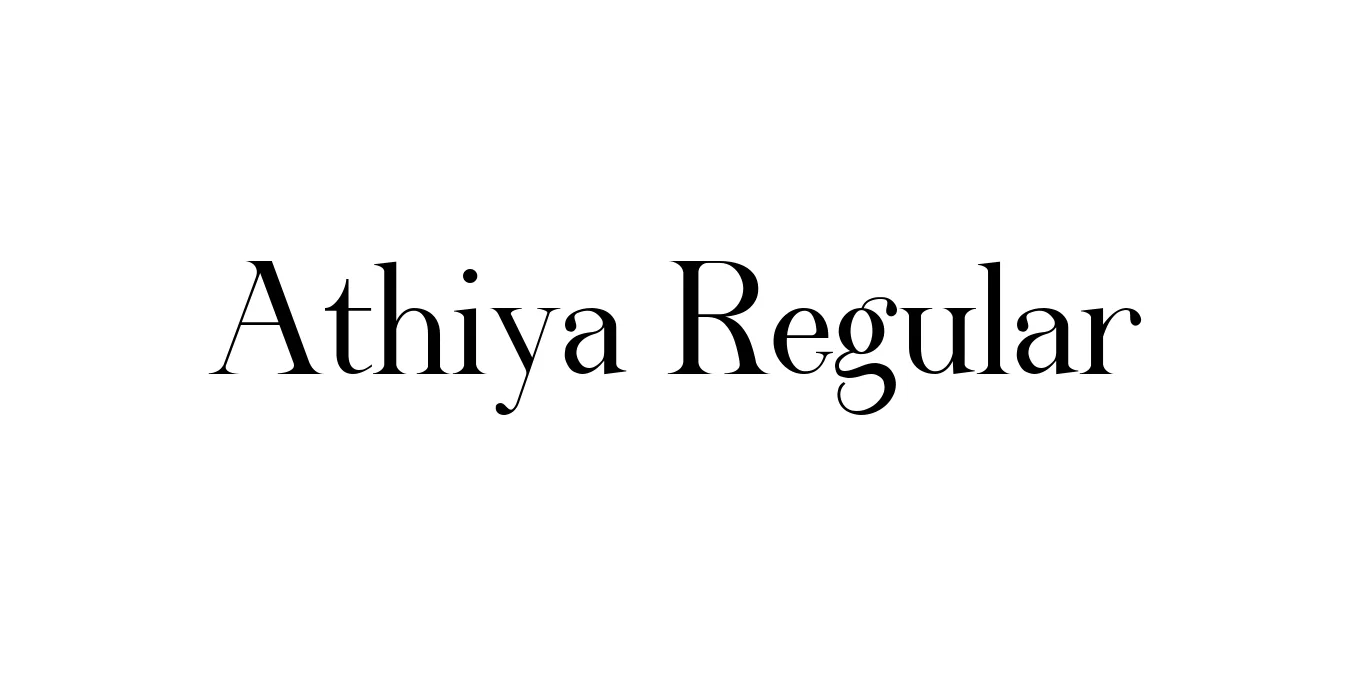
Athiya Regular
Designed by Ardyana Types
Athiya Regular is a sophisticated serif typeface that seamlessly blends traditional elegance with modern design sensibilities. Its refined strokes and balanced proportions make it an exceptional choice for designers seeking a font that conveys both luxury and approachability. The typeface features subtle yet distinct terminals that provide a unique character, ensuring that it stands out in both digital and print applications.
This font is particularly effective for high-end projects where clarity and style are paramount. Whether utilized for editorial layouts, corporate identities, or wedding invitations, Athiya Regular offers a timeless aesthetic. The careful spacing and kerning allow for excellent legibility at various sizes, making it a versatile tool in any creative professional's typographic toolkit.
Athiya Regular Best Uses
Ideal for high-end fashion, beauty, and lifestyle brand logos.
Perfect for magazine headlines and sophisticated layout headers.
Excellent for wedding cards, menus, and formal event invitations.
Great for clean, elegant hero sections on minimalist websites.